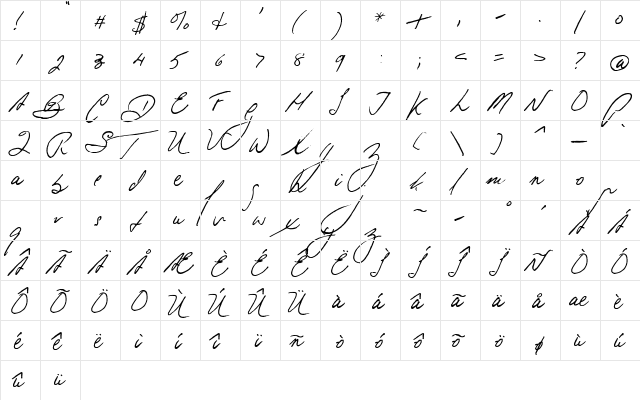
FG Valentin Regular
Design Context for FG Valentin Typeface
FG Valentin is a composed and adaptable typeface that performs quietly and consistently across a wide range of design contexts.